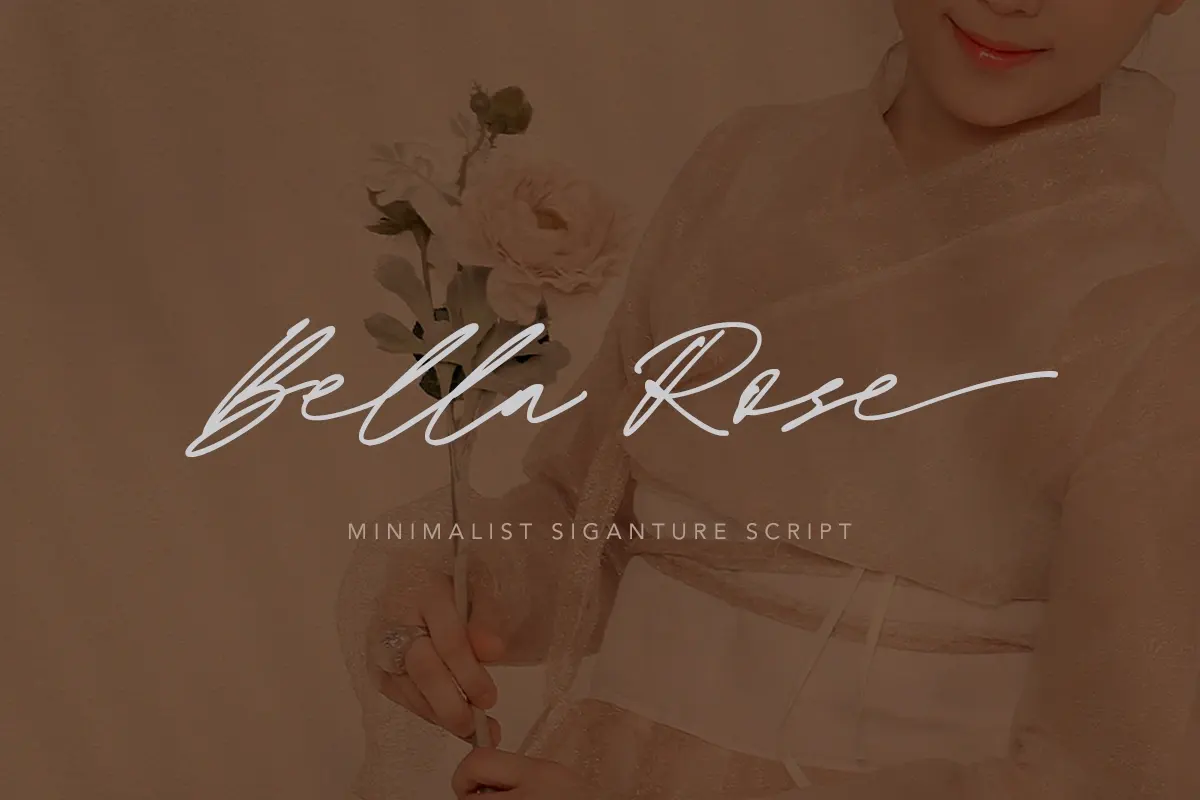
Please note, you must purchase this font for commercial use. However, you can easily download Bella Rose - Minimalist Signature Font Free Download for personal use and testing purposes. Bella Rose - Minimalist Signature Font is an elegant, modern signature script that adds a sophisticated, handwritten touch to your designs. Perfect for branding, logos, invitations, and personal projects, this font combines sleek, minimalistic strokes with the charm of a signature style. Whether you're designing a luxurious brand, a stylish invitation, or a creative logo, Bella Rose - Minimalist Signature Font Free Download brings a refined and artistic flair to any project. Download Bella Rose - Minimalist Signature Font Free Download today and explore its potential before opting for a commercial license.